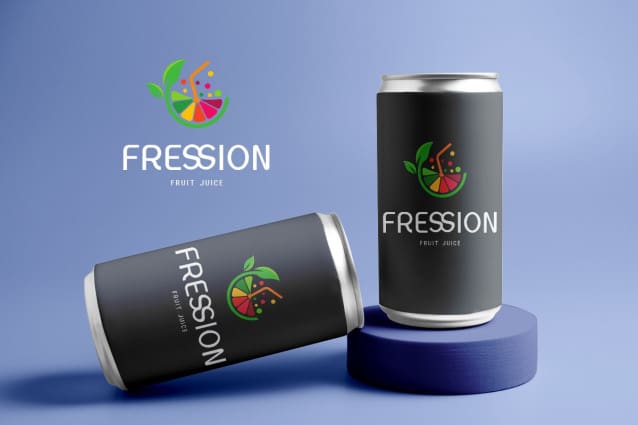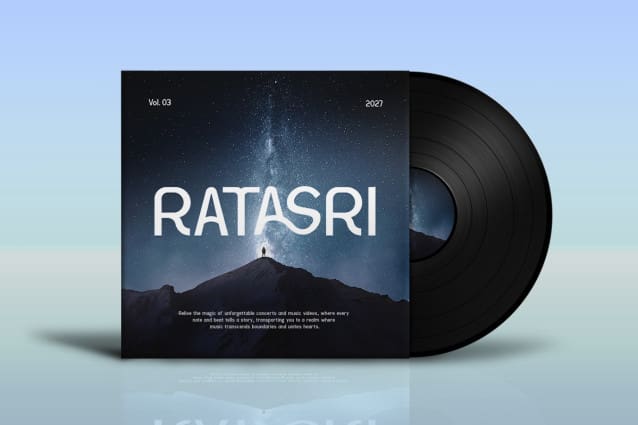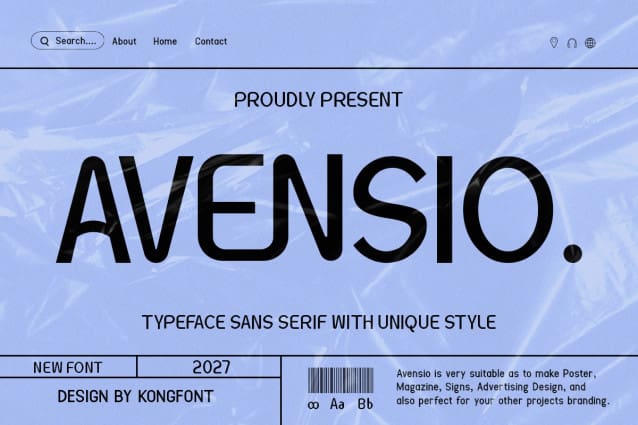
Avensio Font
Avensio Font – Modern Classy Unique Sans Serif Font is a new creation that comes with a great style and is made with the addition of curvature variation than usual. This font is one of the fonts that give you options for people who are interested in using a sans serif font. Avensio Font – Modern Classy Unique Sans Serif Font has the characteristic that there is no exaggeration in each form of the letter. This font has a normal shape like the original letter. From the style, this font is legible. This font will be seen as clean when used with a large font size.
Avensio Font – Modern Classy Unique Sans Serif Font certainly has high usability when used for branding a product. This font can be used for advertising posters, brand tags, and shop signs. This font can create a modern and simple impression of the product combined. This font can be used for magazine covers and book covers.